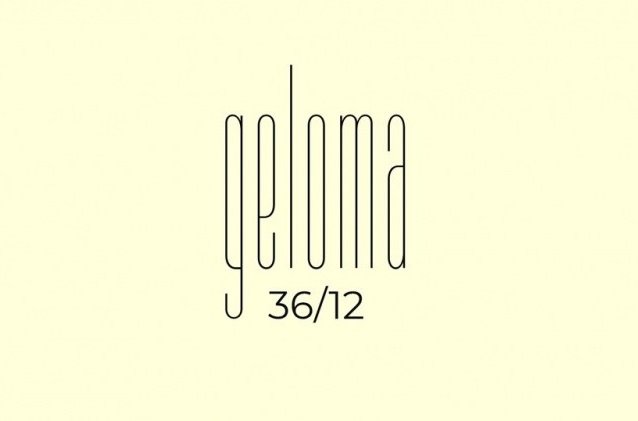
Geloma Font
Geloma Display Font
Geloma Display Font is a sans Display typeface created by Justin Penner with long, thin letters that look almost like threads on a loom when set together. Geloma is made mainly for headlines, titles, and other short texts and is well-suited for advertising, vintage mood board, branding, logotypes, packaging, titles, editorial design and modern and vintage design.